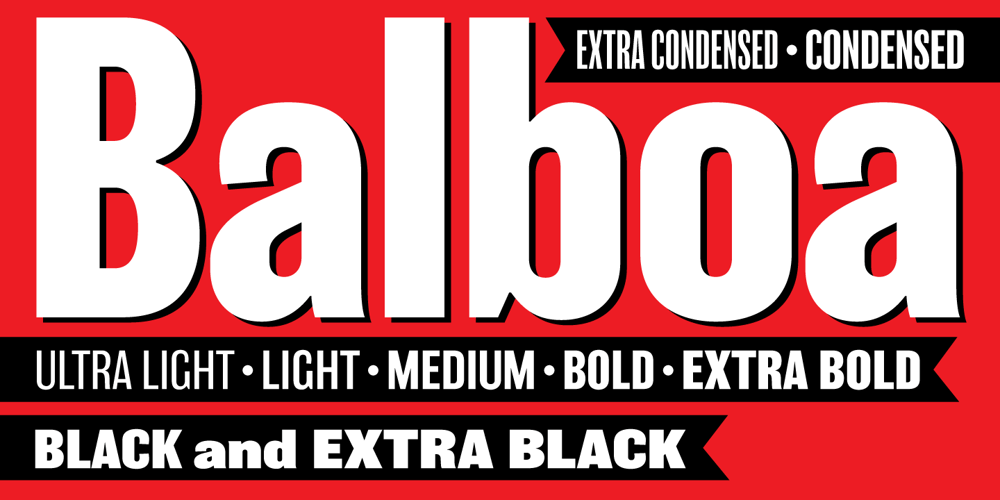
Balboa Font Family was designed by Jim Parkinson and published by Parkinson. Balboa contains 9 styles and family package options. Balboa is a display design combining elements of early sans serif and grotesque types with contemporary types. It evolved from ATF Headline Gothic, Banner (a headline typeface I drew for the San Francisco Chronicle), and Newsweek No.9, a Stephenson Blake-like grotesque I designed for Roger Black’s 1980 redesign of Newsweek Magazine. There are nine styles, including the three new styles that have been added in 2014: Medium, Light and Ultra Light.